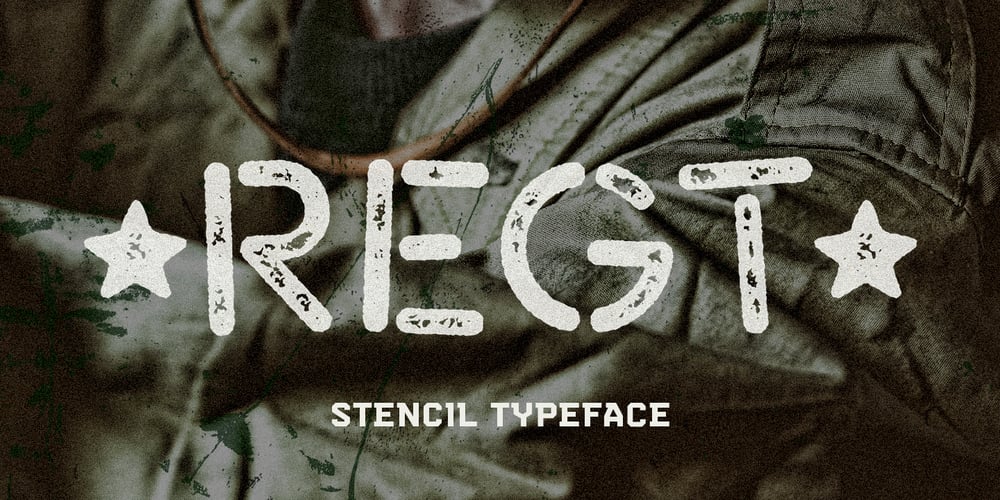
Regt Font Family was designed by Pavel Larin and published by Larin Type Co. Regt contains 3 styles and family package options. Regt this is a military display font family , including three styles: regular, rough, pressed.This font is a wide specialization, it will be an excellent option for creating projects in the military style in both modern and vintage versions. It is great for creating logos, labels, branding projects, magazines, video game, flyers, posters and much more. This font is easy to use has OpenType features.